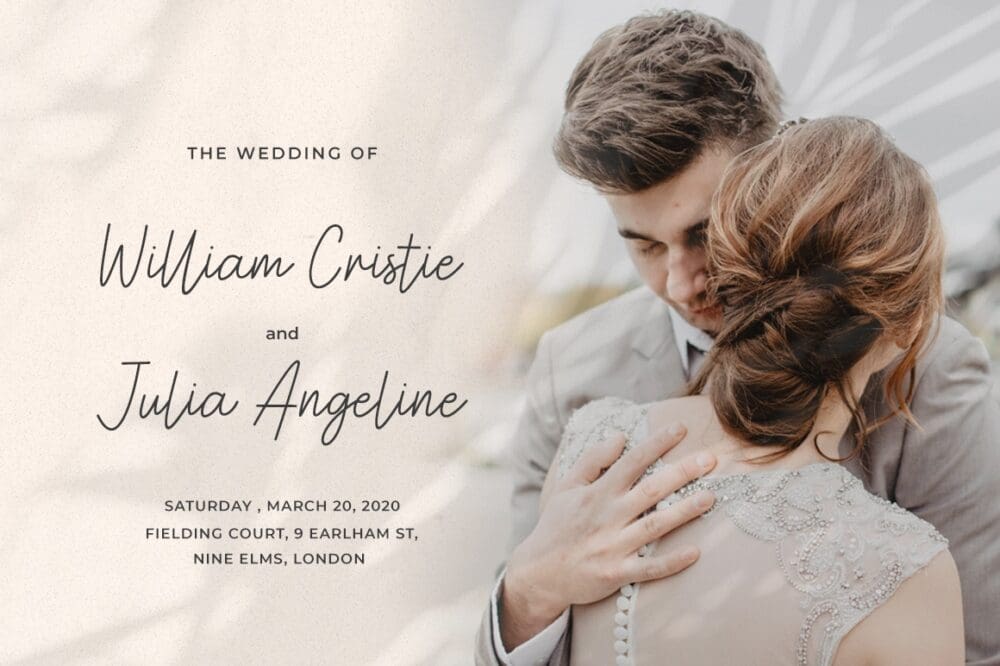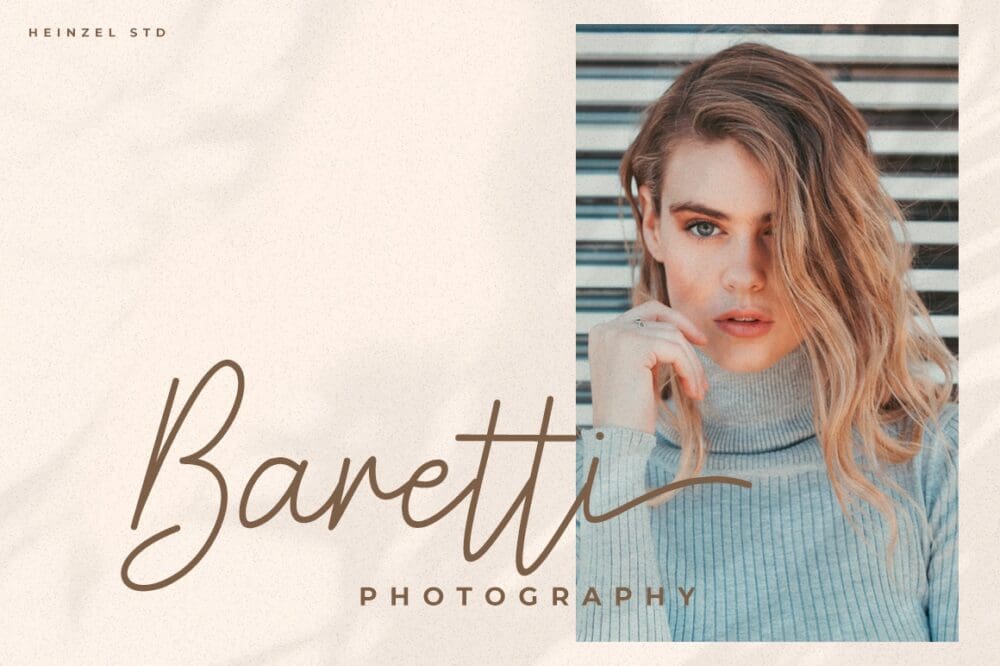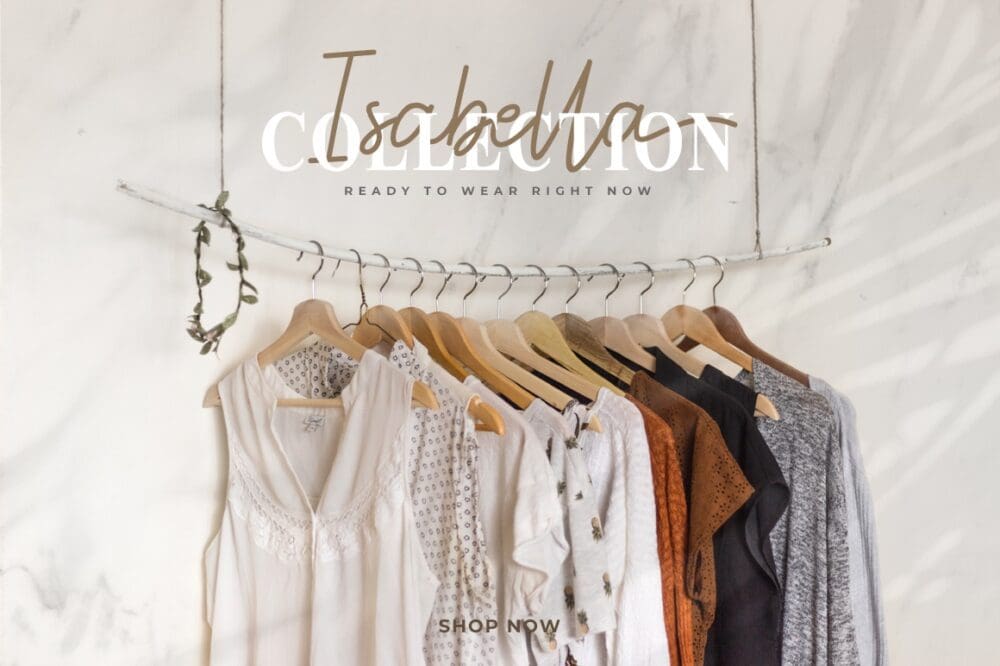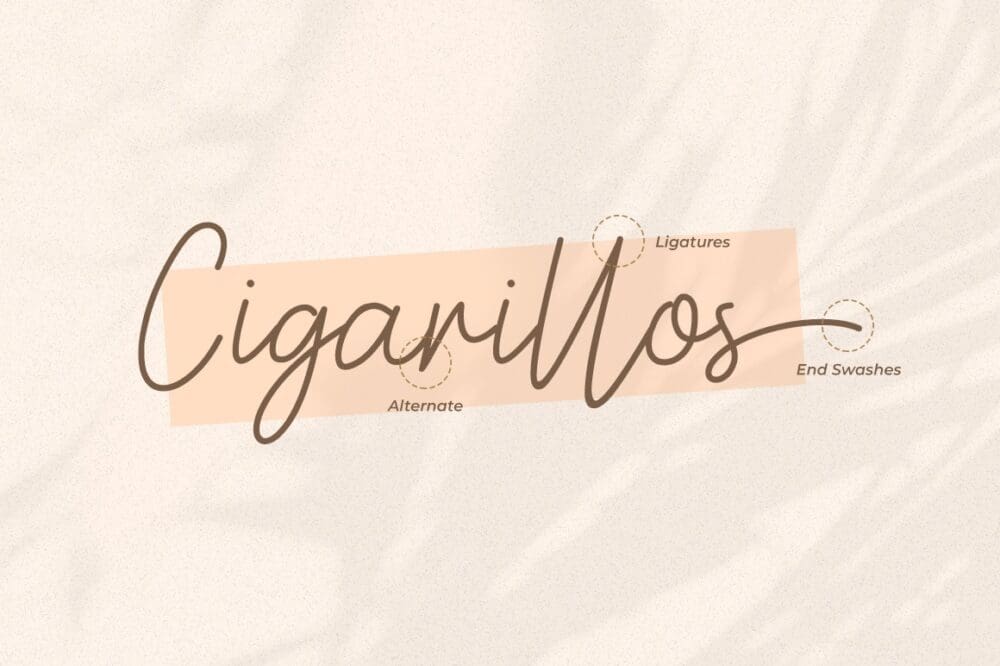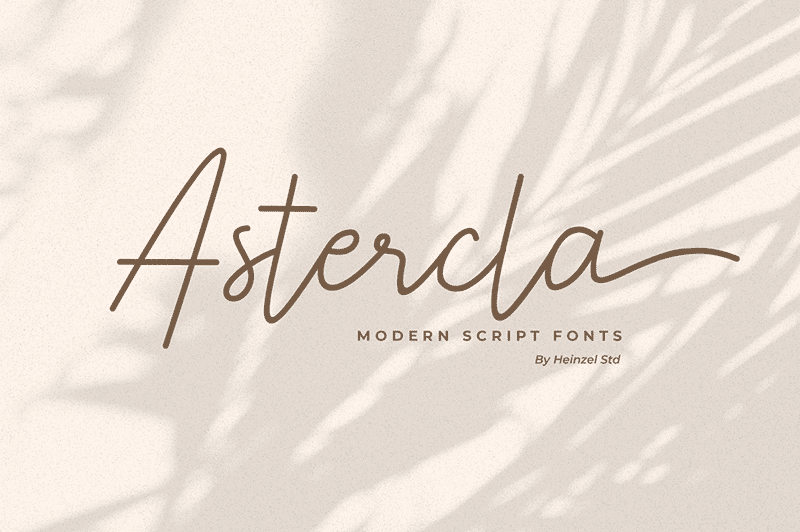
Astercla Script Font
Astercla Script Font is a modern and elegant font with a handwritten style. The playful rounded characters make it the perfect font to create any idea into a true piece of art!